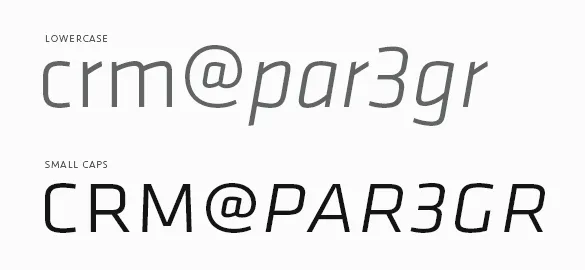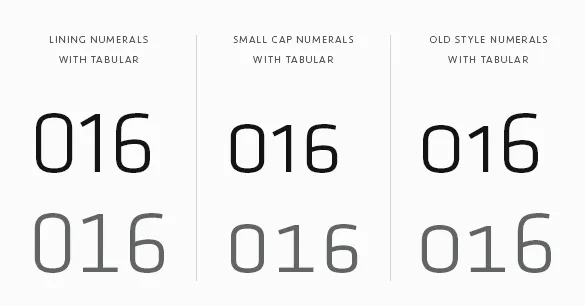
Designing Klavika
Frustrated with a lack of fonts both versatile and modern, we set out to design Klavika as a full-featured, do-it-all sans serif for the needs of the 21st century. Our result is a design that’s unadorned, modern and infinitely flexible. To achieve this, Klavika follows a decidedly hybrid typographic path – a cross of humanist and geometric influences with allegiances to neither. Crisp and open shapes keep the font legible in small sizes while the straight-sided characters anchor headlines and display work solidly in place. And since part of the goal was flexibility, we’re happy to report that since its introduction in 2004, Klavika has found its way into a wide variety of media from print to pixels.
To be truly versatile, a font should be reasonably extensive as well. Klavika has a wide range of typographic features and – as is common with our fonts – showers special attention on small caps. They are essential for setting acronyms and initials (amongst other things) and excellent for titling and display work. Special attention has also been paid to the width of the capitals, specifically increasing it, for better legibility at small sizes and added punch in headlines.
Numerals are another of the typographic features. Because a varied array of numerals is essential to contemporary communication, Klavika contains multiple styles. You’ll find Lining (the default style), Old Style, Small Cap, Tabular, Tabular Old Style and Small Cap Tabular numerals for each weight of Klavika – italics included.